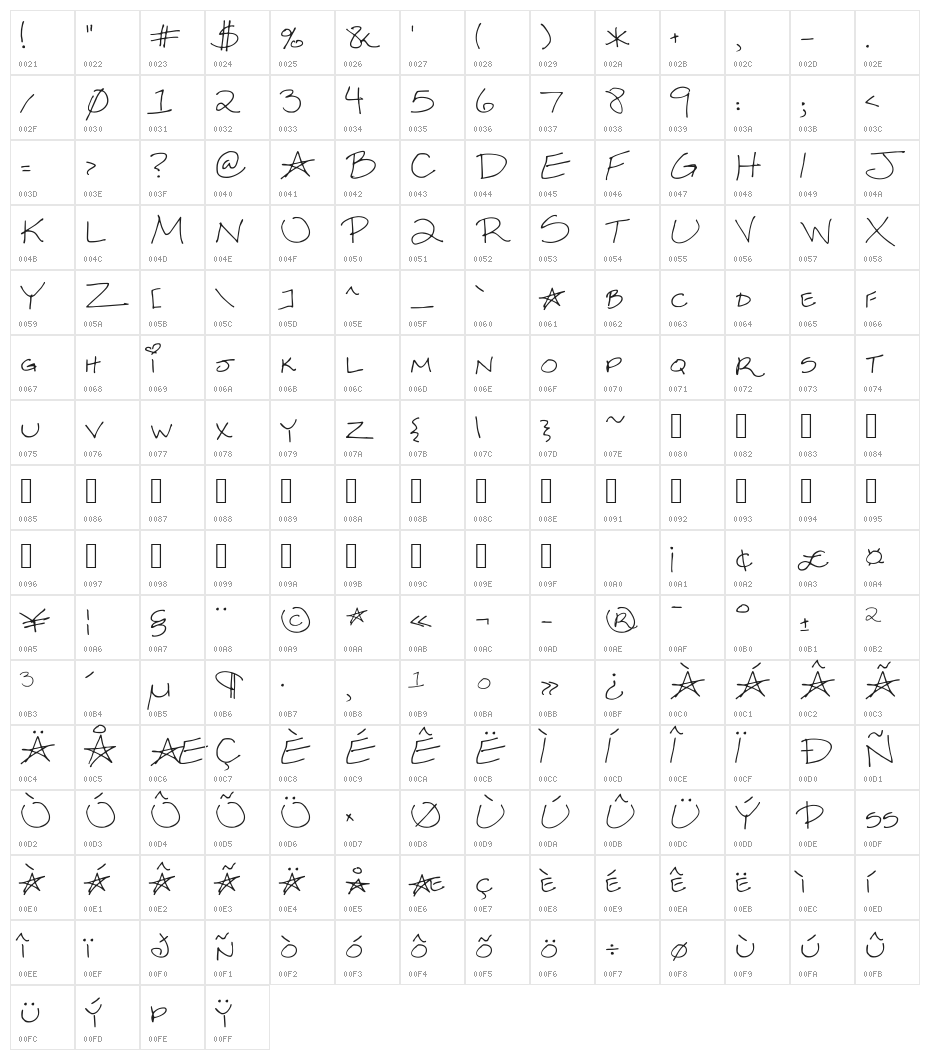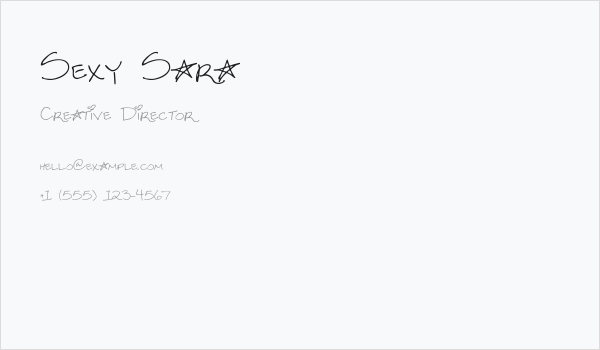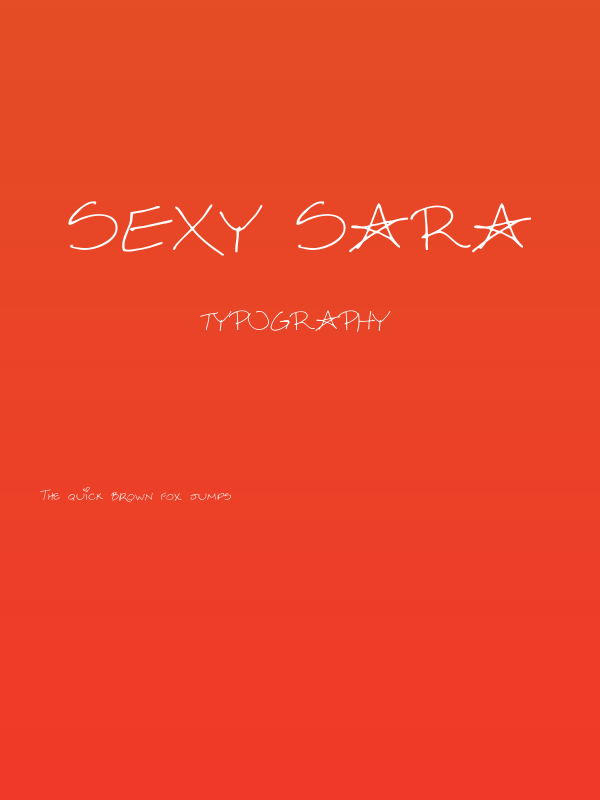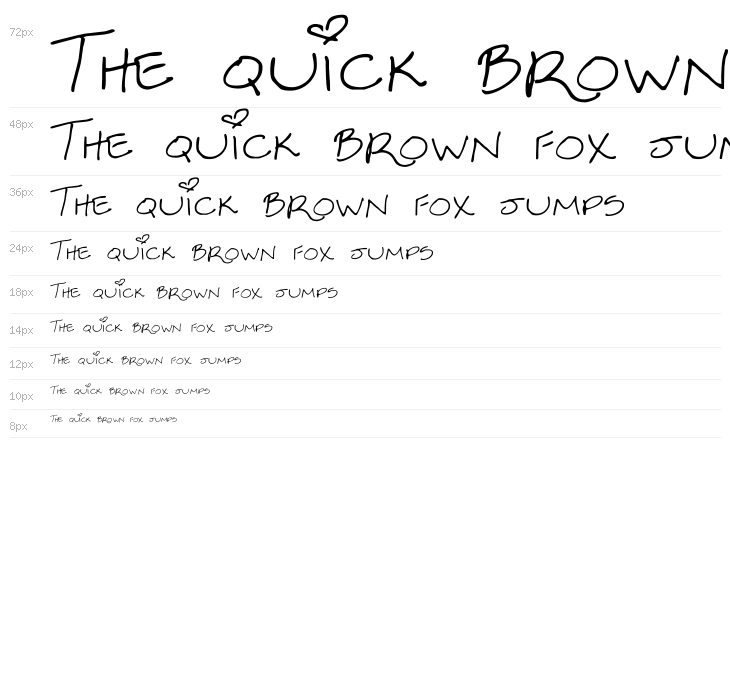
Sexy Sara Font
Sexy Sara Description
This font exudes a playful and whimsical charm, characterized by its handwritten style that mimics casual penmanship. The letters are slightly slanted, adding a dynamic and informal touch. The strokes vary in thickness, creating a lively and spontaneous appearance. The inclusion of unique elements, such as stars and hearts, enhances its decorative appeal. The numerals and special characters maintain the same playful aesthetic, making it suitable for creative projects that require a personal and approachable feel.
| Use Case | Logos, Headlines, Informal Text |
| Proposed Projects | Ideal for greeting cards, children's books, playful branding, and social media graphics. |